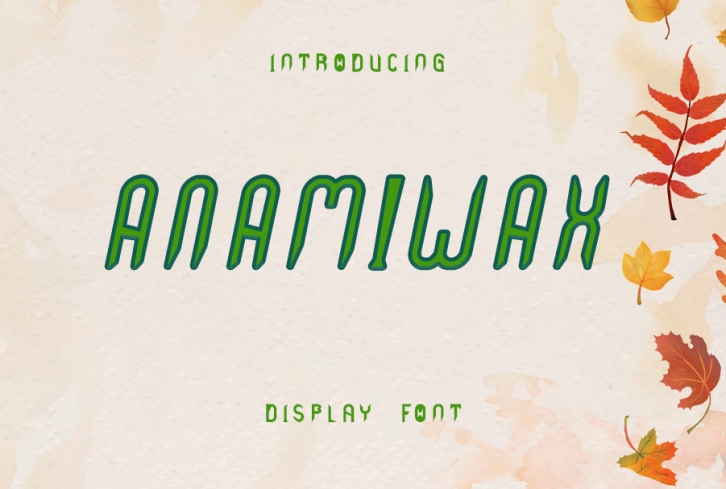
Anamiwax is a cool and adaptable display font. Whatever the topic, this font will be a wonderful asset to your font library, as it has the potential to enhance any creation.